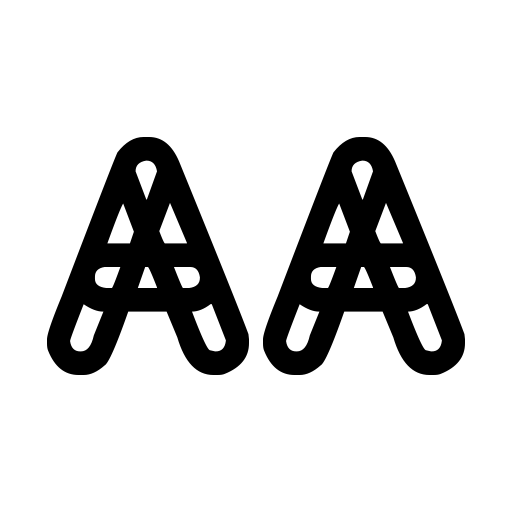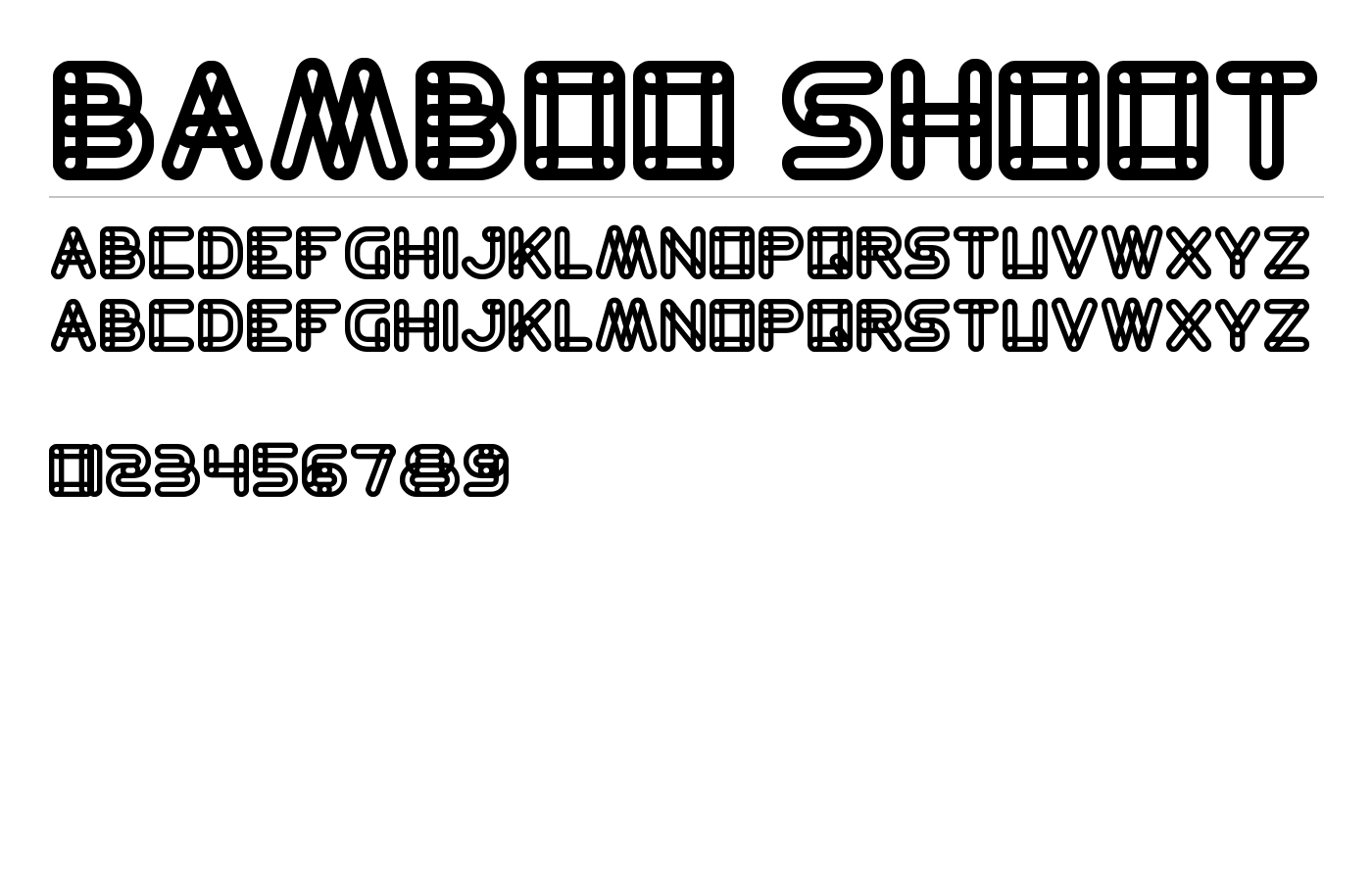
Bamboo Shoot is a bold, geometric sans serif font with a unique, layered outline design that gives it a playful and modern feel. Its consistent weight and rounded corners create a friendly, approachable appearance, making it ideal for eye-catching headlines, logos, and creative branding projects that want to convey energy and originality. This font works well where a strong, stylish impact is needed without sacrificing legibility.
Bamboo shoot Font
About Bamboo shoot Font